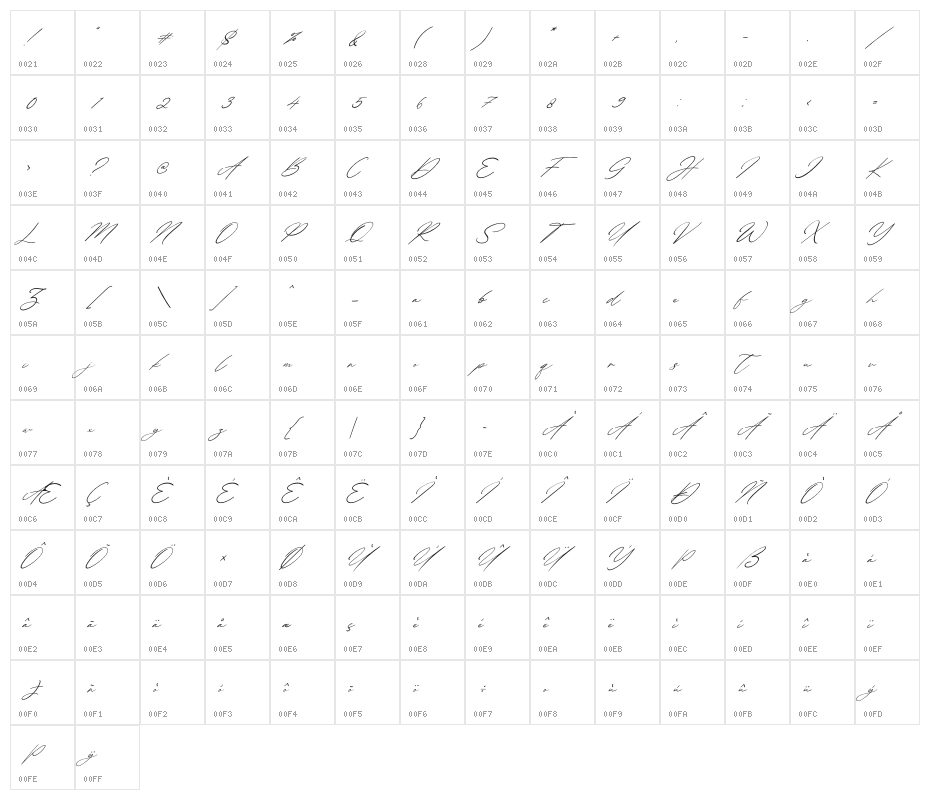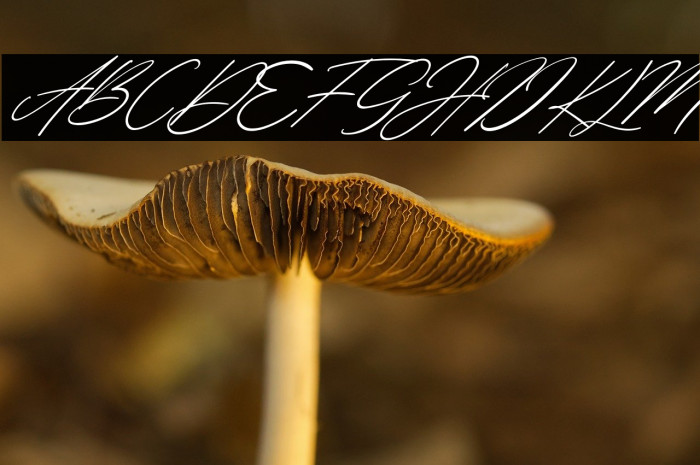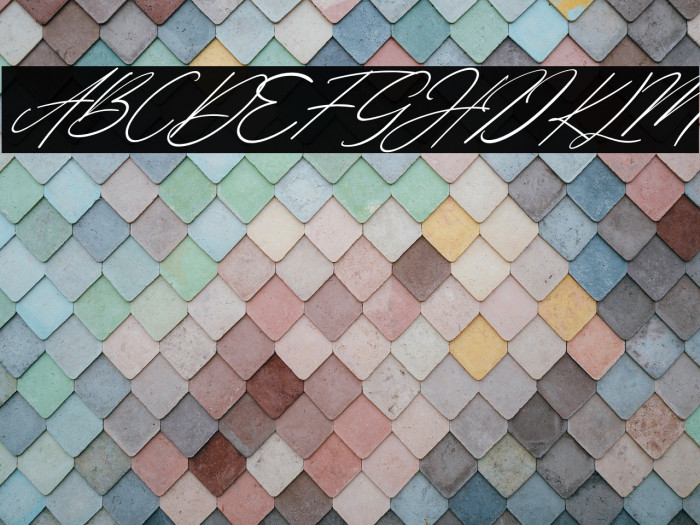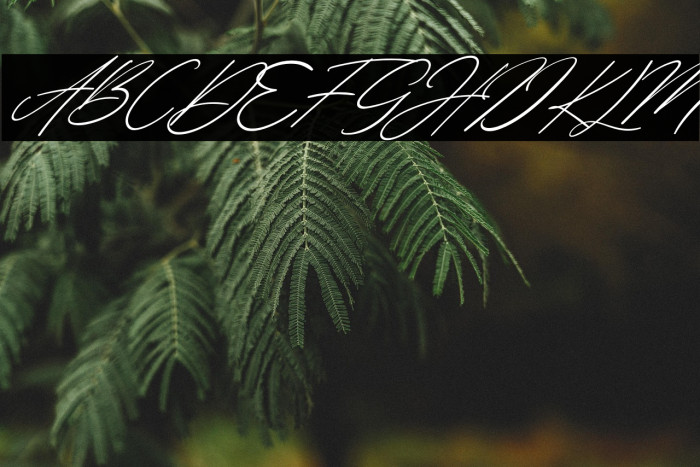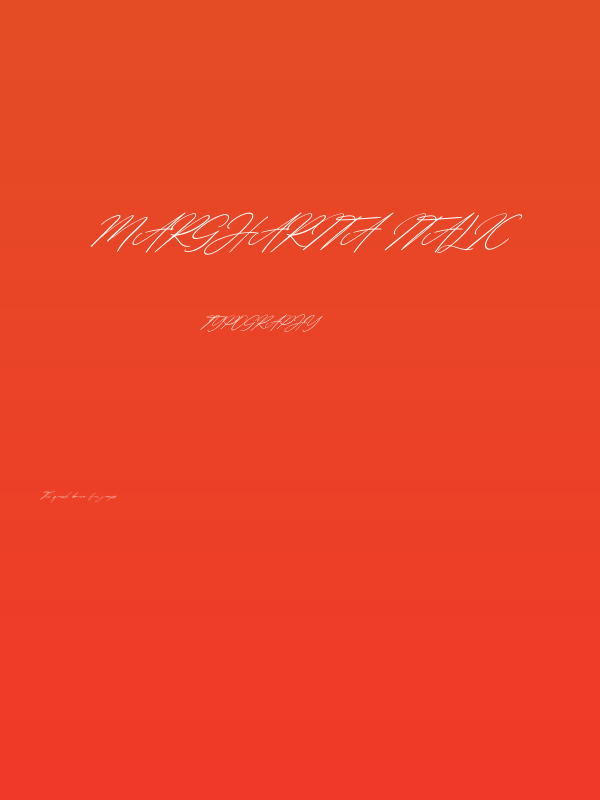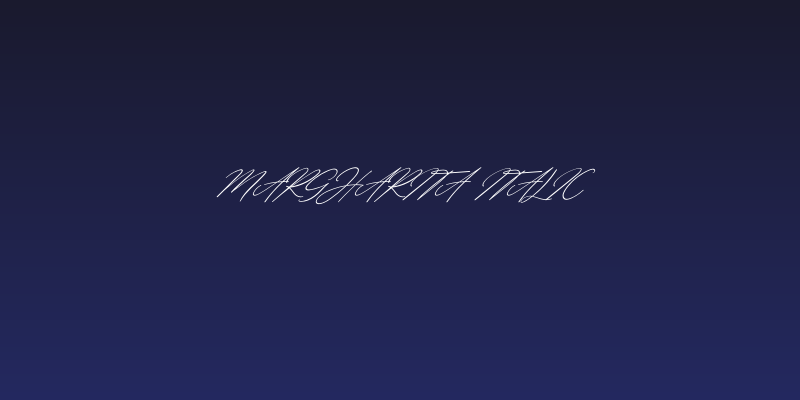
Margharita Italic Font
Margharita Italic Description
This elegant script font features a fluid, cursive style with a sophisticated flair. The characters are gracefully connected, creating a seamless flow that mimics natural handwriting. The uppercase letters are bold and sweeping, while the lowercase letters maintain a delicate and refined appearance. The numerals and special characters are designed with the same attention to detail, ensuring consistency throughout. This font's italic nature adds a dynamic and expressive quality, making it ideal for projects that require a personal touch.
| Overall Style | Elegant, Romantic |
| Use Case | Invitations, Branding, Quotes |
| Proposed Projects | Ideal for wedding invitations, personal branding, elegant stationery, and romantic quotes. |